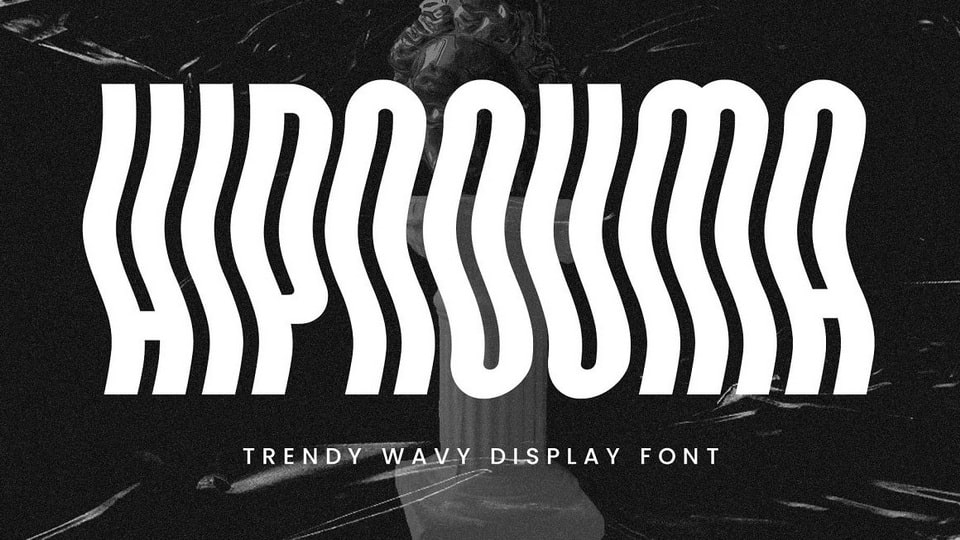
Download Hipnouma is an experimental condensed font that draws inspiration from psychedelic and brutalist styles. This unique typeface is designed with a consistent wavy effect, creating an elegant and attention-grabbing aesthetic, making it perfect for your design projects.